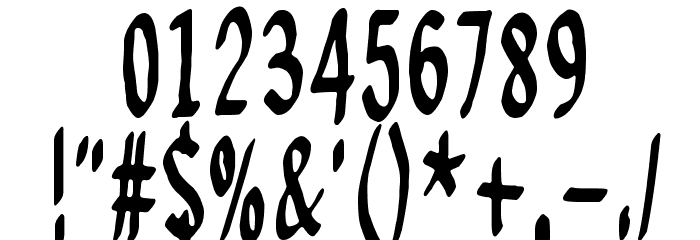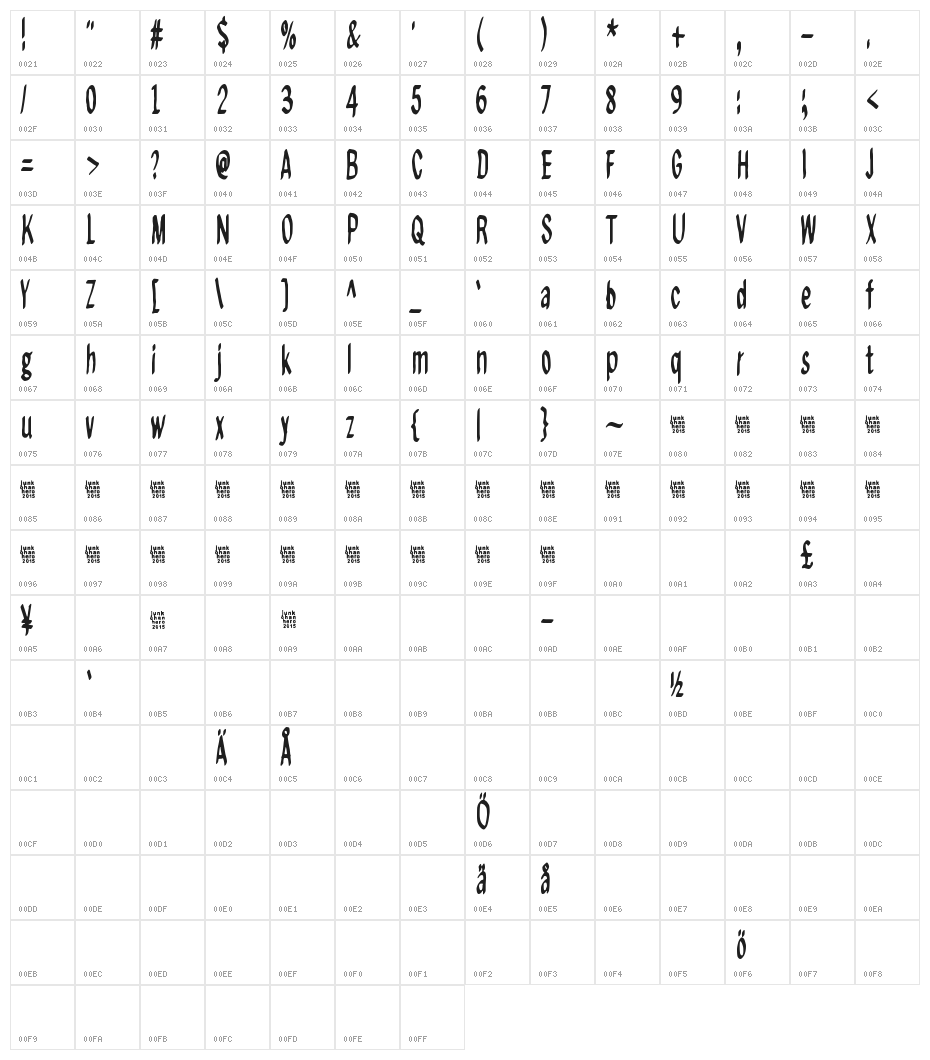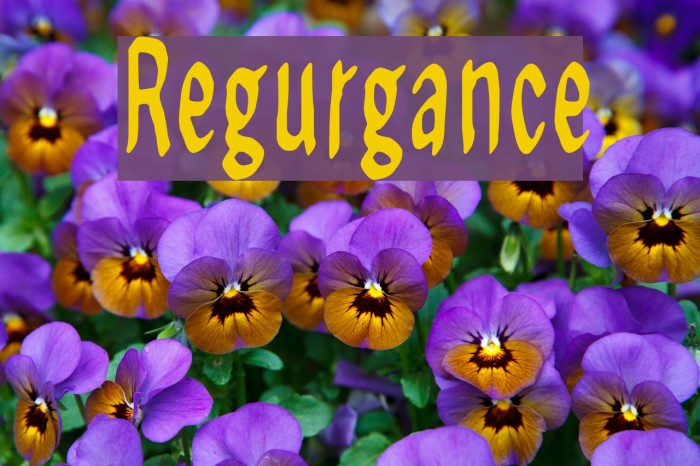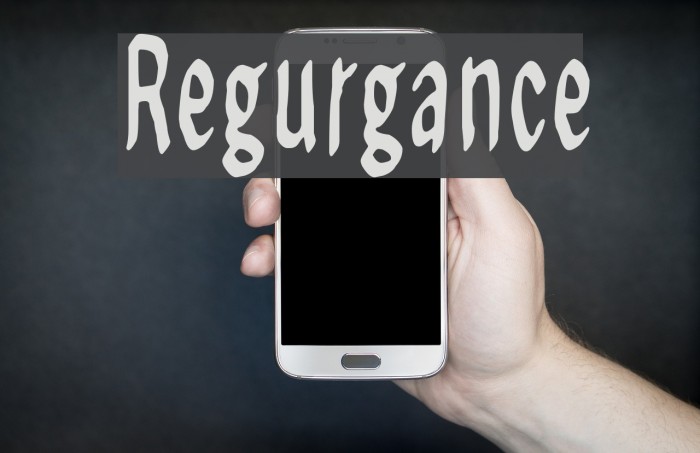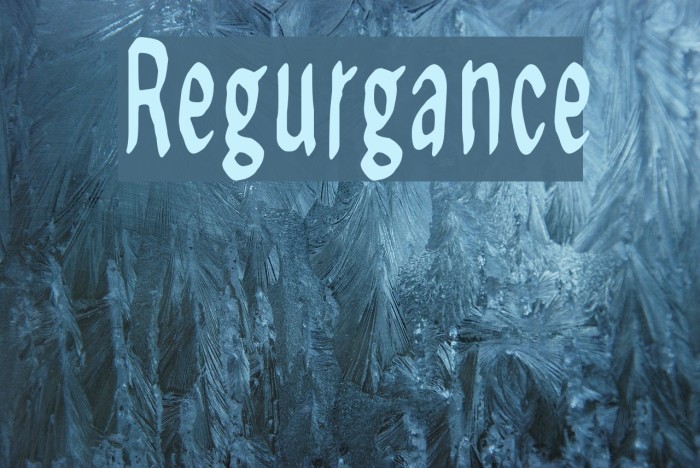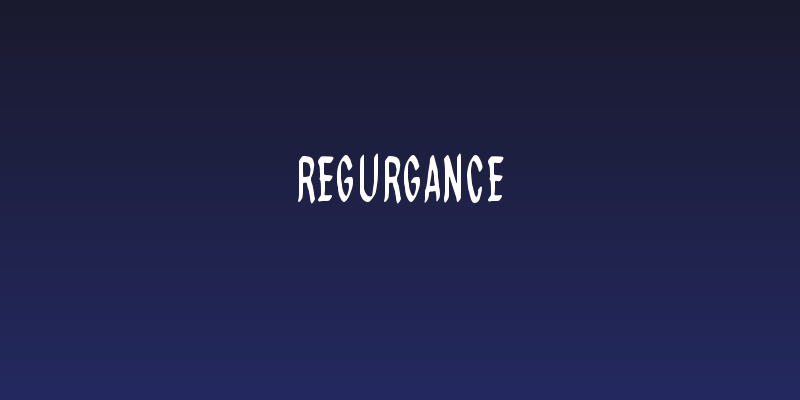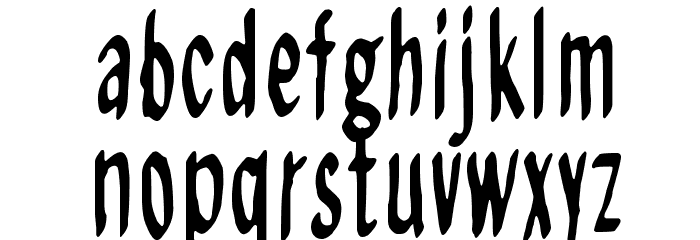
Regurgance Font
Regurgance Description
This font exhibits a playful and slightly irregular style, characterized by its hand-drawn appearance. The letters have a whimsical, uneven stroke that gives them a lively and dynamic feel. The uppercase and lowercase letters maintain a consistent style, with a slightly condensed form that adds to the quirky charm. The numbers and special characters follow the same design principles, ensuring uniformity across the set. The overall aesthetic is informal and artistic, making it suitable for creative projects that require a touch of personality and uniqueness.